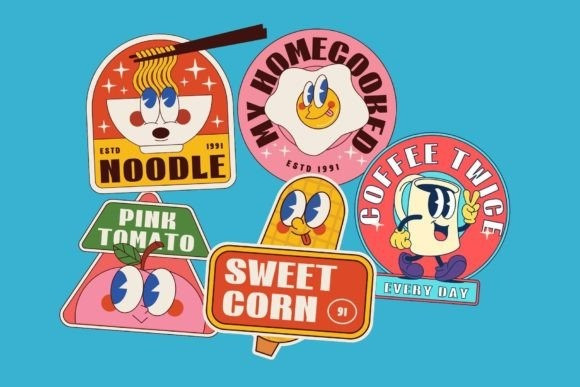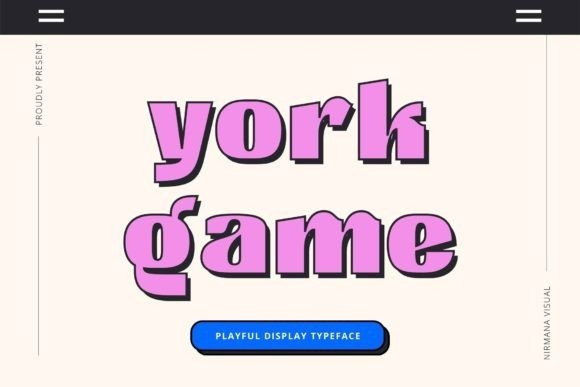
York Game Font
York Game Display Font is a contemporary sans serif display font that offers beautiful typographic harmony for a diversity of design projects such as logos, branding, social media posts, advertisements, product designs, and many more!